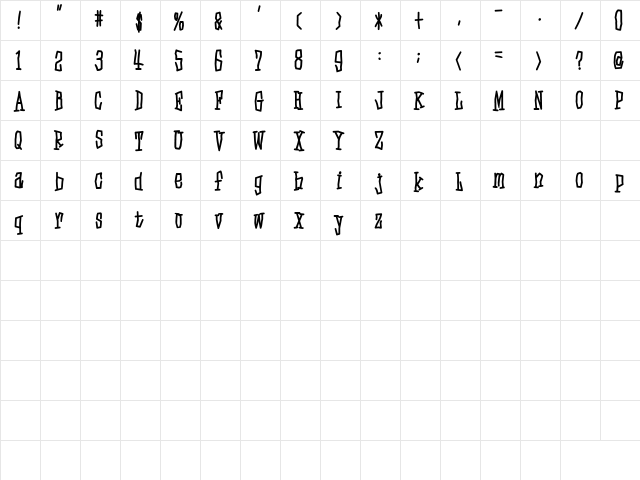
D3 Skullism Alphabet Bold Regular
Design Context for D3 Skullism Alphabet Bold Typeface
D3 Skullism Alphabet Bold is a composed and adaptable typeface that performs quietly and consistently across a wide range of design contexts. Its bold stroke weight gives it real presence on the page.
Pro Tip: Use D3 Skullism Alphabet Bold in both headline and body roles to test its range before committing to a single application.